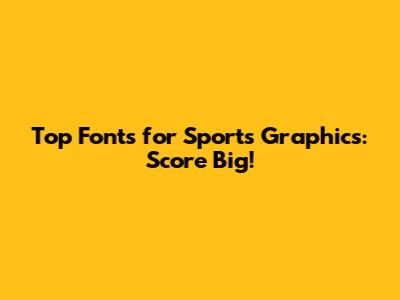
- Bold Sans-Serif Fonts: These fonts are a go-to choice for many sports teams due to their modern, clean, and easily readable appearance. Their strong, geometric forms convey a sense of power and confidence, making them ideal for headlines, logos, and jersey lettering. Popular options include Bebas Neue, Montserrat, and Open Sans. These fonts are highly versatile and work well in both print and digital formats. They also come in a variety of weights, allowing you to create visual hierarchy and add emphasis to key information. When choosing a bold sans-serif font, consider its overall legibility and how well it scales at different sizes. You want a font that remains clear and readable even on small screens or from a distance. Also, pay attention to the spacing between letters and words, as this can affect readability. Some bold sans-serif fonts can feel overwhelming if the spacing is too tight. Experiment with different options and see what resonates best with the team's identity and the message you want to convey.
- Slab Serif Fonts: Slab serif fonts are characterized by their thick, block-like serifs, which give them a sturdy and retro feel. They're a great choice for teams with a classic or vintage aesthetic, or those looking to convey a sense of tradition and strength. Examples include Rockwell, Arvo, and Museo Slab. Slab serif fonts can be particularly effective for logos and headlines, where their bold presence can make a strong statement. However, they may not be the best choice for body text, as their thick serifs can make them difficult to read in large blocks. When using a slab serif font, consider the overall design of your graphics and how it complements the font's style. A clean, minimalist design can help to balance the font's bold presence, while a more ornate design can enhance its vintage feel. Also, pay attention to the contrast between the font and the background, as this can affect readability. A high-contrast color scheme can help the font stand out and make it easier to read.
- Script Fonts: While not as commonly used as sans-serif or serif fonts, script fonts can add a touch of elegance and personality to sports graphics. They're often used for secondary elements, such as taglines or player names, rather than for headlines or logos. However, when used sparingly and effectively, they can create a unique and memorable visual identity. Examples include Brush Script MT, Pacifico, and Lobster. When choosing a script font, consider its readability and how well it complements the other fonts in your design. A highly ornate script font may be difficult to read, especially at small sizes, so it's important to choose one that is relatively clean and legible. Also, pay attention to the spacing between letters and words, as this can affect readability. A script font with too much spacing may look disjointed, while one with too little spacing may be difficult to read. Experiment with different options and see what resonates best with the team's identity and the message you want to convey. Keep in mind that script fonts are best used sparingly, as overuse can make your graphics look cluttered and overwhelming.
- Geometric Fonts: Geometric fonts, inspired by basic shapes like circles and squares, exude modernity and simplicity. These fonts, think Futura and Avant Garde, offer a clean aesthetic, ideal for sports teams aiming for a cutting-edge image. Their precise lines and balanced forms bring a sense of order and efficiency, resonating well with sports that value precision and strategy. Geometric fonts are versatile, fitting seamlessly into logos, headlines, and body text, ensuring a consistent visual experience across different platforms. When selecting a geometric font, prioritize legibility to ensure clear communication, especially at various sizes. The spacing between letters is crucial; too tight can overwhelm, while too wide can appear disjointed. Play around with weights to create visual hierarchy, guiding the viewer's eye to important information. Geometric fonts are a powerful choice for teams looking to convey innovation and a forward-thinking approach, providing a sleek and contemporary edge.
- Distressed Fonts: Distressed fonts inject a sense of grit and authenticity into sports graphics. Characterized by their rough edges and worn textures, these fonts evoke a feeling of history and hard-fought battles. Perfect for teams wanting to showcase their resilience and storied past, distressed fonts add a raw, visceral element to designs. They work particularly well for logos and promotional materials, lending a unique, handcrafted feel. Consider options like Stencil or Grungy for a standout effect. When using distressed fonts, balance is key. Overdoing it can make your design appear messy and illegible. Pair them with cleaner, simpler fonts to ensure readability. Also, pay attention to the color palette; earth tones and muted colors often complement distressed fonts, enhancing their rugged appeal. Distressed fonts are a bold choice, ideal for teams wanting to convey toughness and a no-nonsense attitude.
- Nike: Nike is a master of using fonts to convey a sense of speed and agility. They often use sleek, sans-serif fonts in their advertising and branding, such as Futura and Helvetica. These fonts are clean, modern, and easily readable, making them ideal for conveying the brand's message of performance and innovation. Their font choices are consistent across all platforms, from their website to their apparel, creating a strong and recognizable brand identity.
- ESPN: ESPN uses a variety of fonts in their sports broadcasts and graphics, but they often rely on bold, easily readable fonts for scoreboards and statistics. These fonts need to be clear and legible at a glance, so they typically choose sans-serif fonts with a high x-height (the height of lowercase letters). They also use different font weights and sizes to create visual hierarchy and draw attention to key information. Their font choices are carefully considered to ensure that viewers can easily follow the action and stay informed.
- Adidas: Adidas, similar to Nike, favors modern, geometric sans-serif fonts in their branding. A standout choice is their custom font, Adihaus, reflecting their dedication to innovation and sleek design. This font is incorporated across various platforms, from advertising campaigns to product packaging, reinforcing a consistent brand identity. The clean lines and balanced proportions of Adihaus embody Adidas' commitment to performance and style, resonating with athletes and fashion enthusiasts alike. By using such a distinctive and versatile font, Adidas solidifies its position as a leader in the sports apparel industry, effectively communicating its brand values through typography.
- Puma: Puma often utilizes bold, impactful sans-serif fonts in its sports graphics. A notable example is their use of Bebas Neue, a tall and condensed font that exudes energy and dynamism. This font is prominently featured in their advertising campaigns and promotional materials, conveying a sense of speed and agility. Puma's font choices align with their brand image, targeting a younger, more athletic audience. The use of such a distinctive font helps Puma stand out in the crowded sports apparel market, reinforcing its brand identity and message. By consistently using Bebas Neue and other similar fonts, Puma communicates its commitment to performance and style, effectively connecting with its target demographic.
- NBA Teams: NBA teams often use a combination of bold sans-serif and serif fonts in their branding. For example, the Los Angeles Lakers use a combination of a classic serif font for their name and a bold sans-serif font for their numbers. This combination creates a sense of tradition and modernity, reflecting the team's long history and their commitment to innovation. Other NBA teams, such as the Chicago Bulls, use a single, bold sans-serif font for their entire brand, conveying a sense of power and aggression. Their font choices are carefully considered to reflect the team's identity and appeal to their fan base.